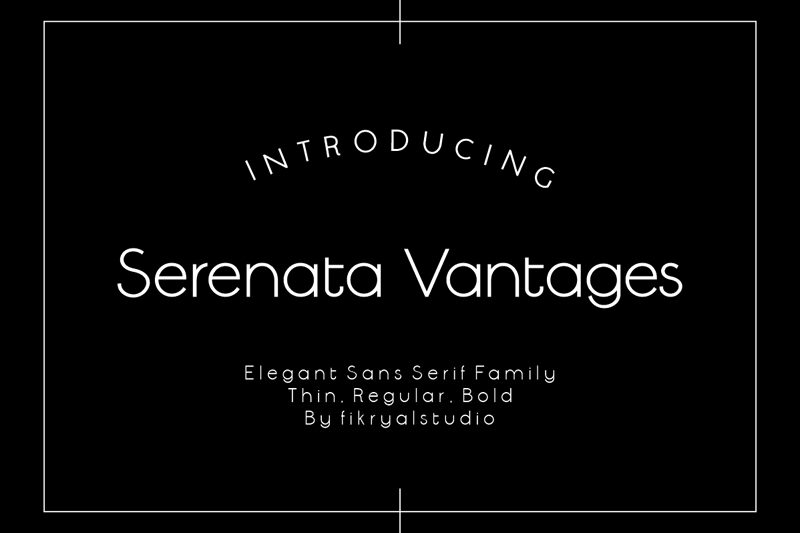
Serenata Vantages
Serenata Vantages, a creation of Fikryal studio, is a captivating sans-serif font that exudes a sense of tranquility and elegance. Its light weight and clean, modern lines evoke a serene and sophisticated atmosphere, making it a versatile choice for a wide range of design applications.
The font's delicate strokes and well-balanced character shapes lend a refined and polished aesthetic, ideal for projects that require a touch of understated refinement. Serenata Vantages' harmonious proportions and harmonious letter spacing contribute to a visually appealing and easy-to-read experience, making it a compelling choice for editorial layouts, branding materials, and digital interfaces.